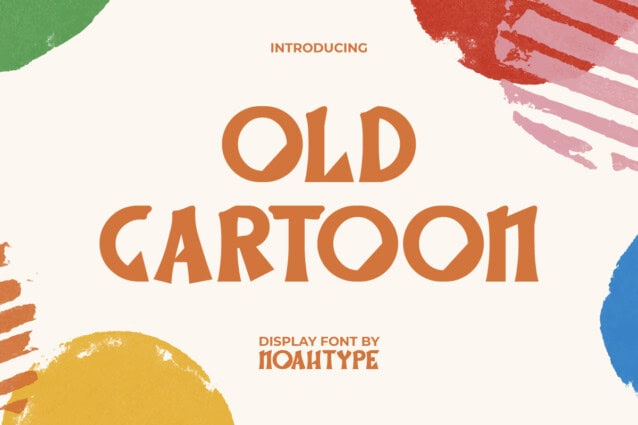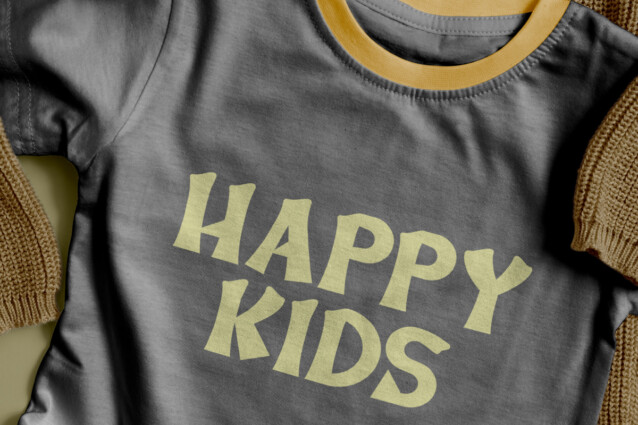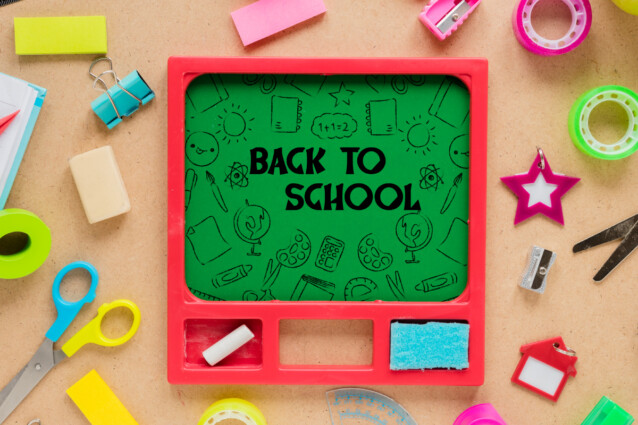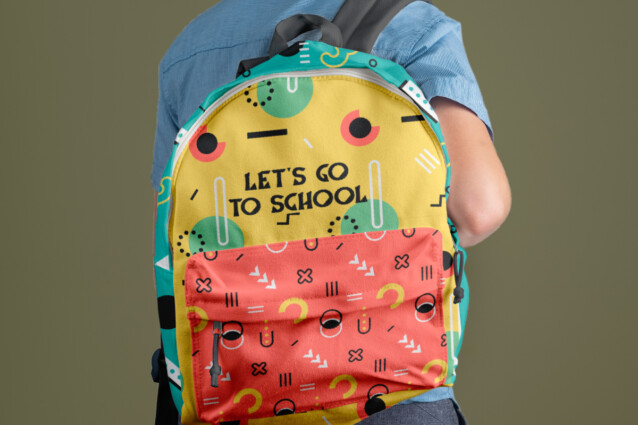
Old Cartoon Font
Old Cartoon Font is a cute cartoon display font that has a playful and unique shape that gives attractive looks. This font will suit many designs, such as brand image, business card, cartoon, catalog, comic, cover, custom design, invitation, label, menu, poster, quote, stationery, web, and more!
Old Cartoon Font includes full set of ALL CAPS for both Uppercase and Lowercase Basic Characters, Numerals and Punctuation. The characters of this font will give fun and cute appearances and perfect choice for many industries, such as advertisement, café, cover, event organizer, fashion, food and beverage, kids stuff, movie, printing, publishing, etc.